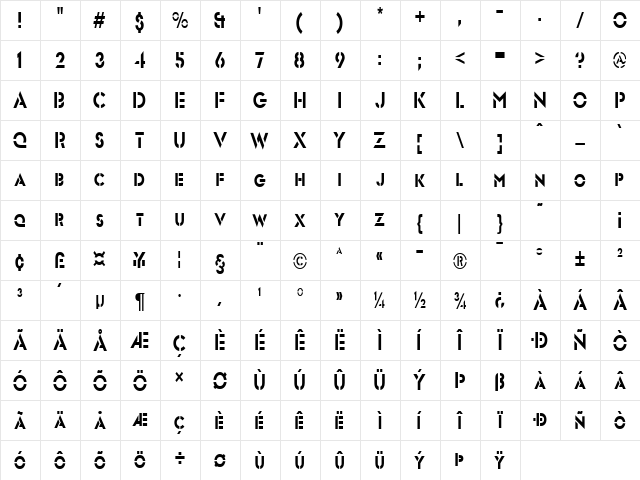
Stencil SansCondensed Normal
Design Context for Stencil SansCondensed Typeface
Stencil SansCondensed has the rough pragmatism of spray-painted stencil signage, adding a raw, street-level authenticity to designs.
A strong choice for packaging that needs edge, warehouse aesthetics, and rough-and-ready visual identities.
Pro Tip: Use Stencil SansCondensed at large sizes on packaging, posters, or apparel where the stencil cutaways read clearly. Avoid small sizes where those gaps become visual noise.